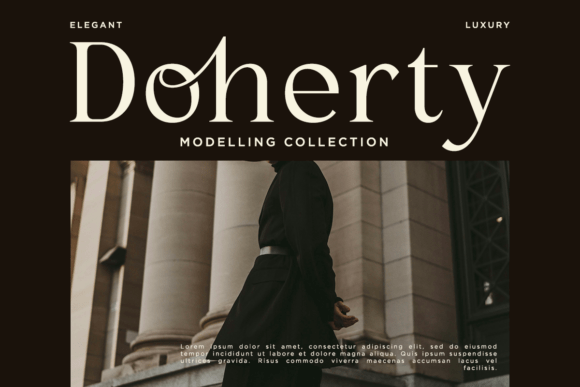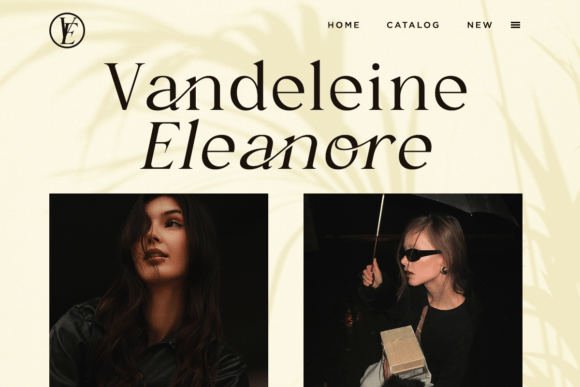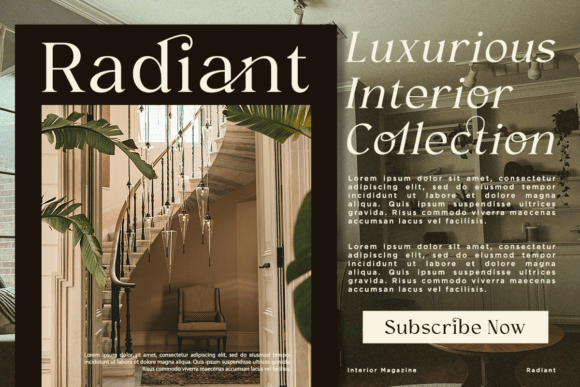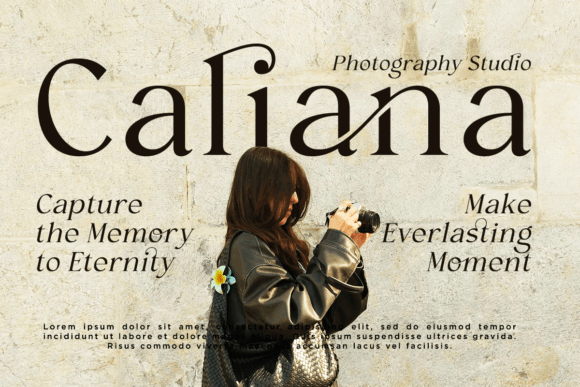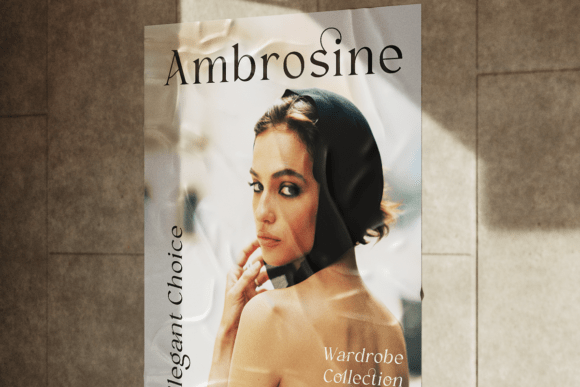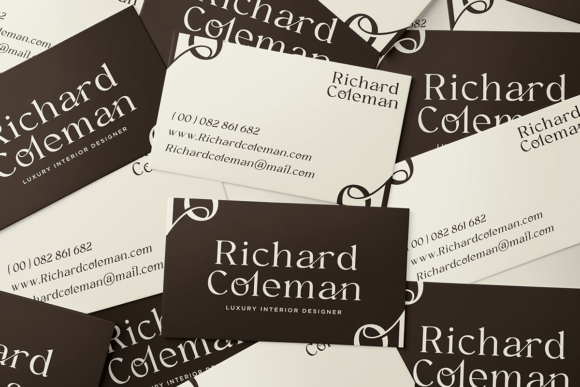
The Perfect Typographic Match for High-End Creativity
Have you ever stared at a blank page, desperately searching for the perfect font to bring your design to life? The right typeface can make all the difference, elevating your work from mere aesthetics to a sophisticated visual language. For designers seeking to convey elegance, confidence, and timeless sophistication, Clony Font is an ideal choice.
This luxury ligature serif typeface is specifically designed to express refined fashion branding and high-end editorial aesthetics. With its unique blend of curved elegance and strong serif structures, Clony Font delivers a premium visual character that feels both classic and modern. Whether you’re working on a fashion brand, editorial layout, or upscale visual identity, this serif typeface is a valuable tool in your creative arsenal, helping you communicate exclusivity and style with ease.
Clony Font Key Features
- Unique Characteristics: Clony Font features a distinctive, hand-drawn aesthetic with a mix of organic and geometric elements, adding a touch of personality to designs.
Clony Font Review
I’ve had the chance to work with Clony Font, and here’s my honest take on it.
First off, I love the unique aesthetic of Clony Font. It’s a bold, eye-catching font that’s perfect for making a statement. The irregular letterforms add a touch of personality to any design, and the font’s weight is well-balanced, making it easy to read even at larger sizes.
- Unique, bold aesthetic that’s perfect for making a statement
- Well-balanced weight makes it easy to read at larger sizes
- Great for use in headings, titles, and other display typography
While Clony Font is a great addition to any designer’s toolkit, there are a few limitations to be aware of. The font’s irregular letterforms can make it difficult to use in situations where precision and consistency are key (e.g., body text, long paragraphs). Additionally, the font’s bold weight can be overwhelming if used too extensively.
- May not be suitable for body text or long paragraphs
- Can be overwhelming if used too extensively
- Limited language support (e.g., no Cyrillic or Greek support)
Overall, I think Clony Font is a great choice for designers who want to add a touch of personality to their work. While it has some limitations, its unique aesthetic and well-balanced weight make it a valuable addition to any design project. Just be sure to use it thoughtfully and in situations where it can really shine.
Clony Font is ideal for creating visually appealing and unique designs. Some common use cases include:
- Social media graphics and posts
- Infographics and presentations
Remember to experiment with different font sizes, colors, and styles to get the most out of Clony Font.
Alternatives to Clony Font
Open Sans is a clean, modern sans-serif font suitable for body text and titles. It’s highly legible and works well in digital interfaces. Open Sans is a great alternative to Clony Font when you need a professional, yet approachable look. Compared to Clony Font, Open Sans is more versatile and can be used in a wider range of contexts.
Montserrat is a geometric sans-serif font with a strong urban feel. It’s perfect for titles, headings, and display text. Montserrat is similar to Clony Font in its modern aesthetic, but it has a more aggressive, industrial look. Use Montserrat when you want to add a touch of edginess to your design.